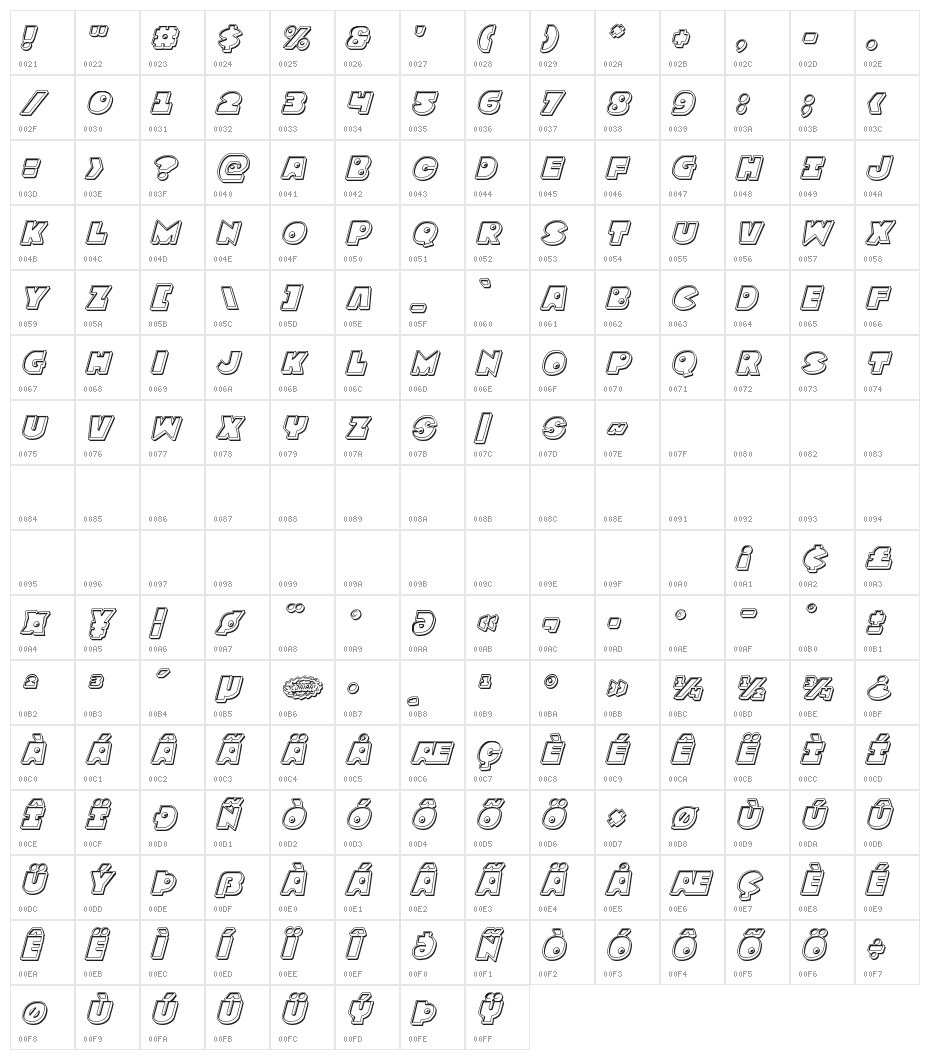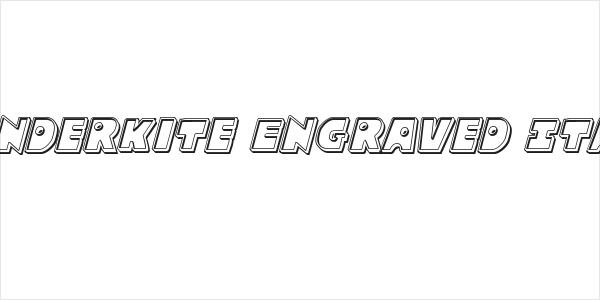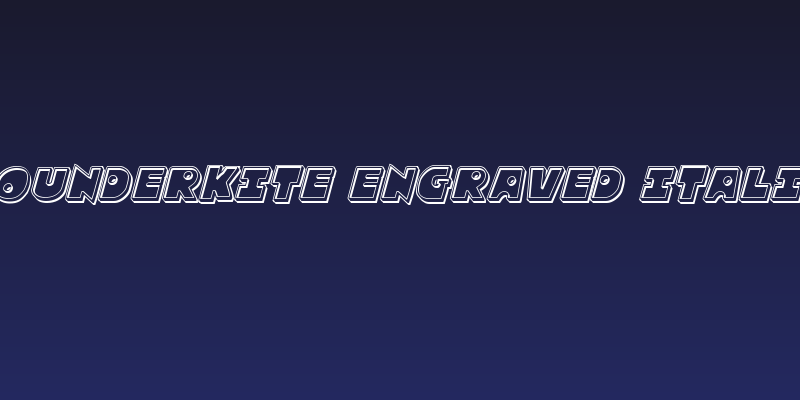
Zounderkite Engraved Italic Font
Zounderkite Engraved Italic Description
This font features a bold, three-dimensional engraved style with a strong visual impact. Each character is outlined with a shadow effect, giving it a sense of depth and dimension. The uppercase and lowercase letters maintain a consistent style, with sharp angles and clean lines. The numbers and special characters are designed to match the boldness and engraved appearance of the alphabet, making the entire set cohesive. This font's unique style is both modern and playful, suitable for projects that require a standout typeface.
| Proposed Projects | Ideal for posters, logos, headlines, and any design needing a bold, eye-catching typeface. |